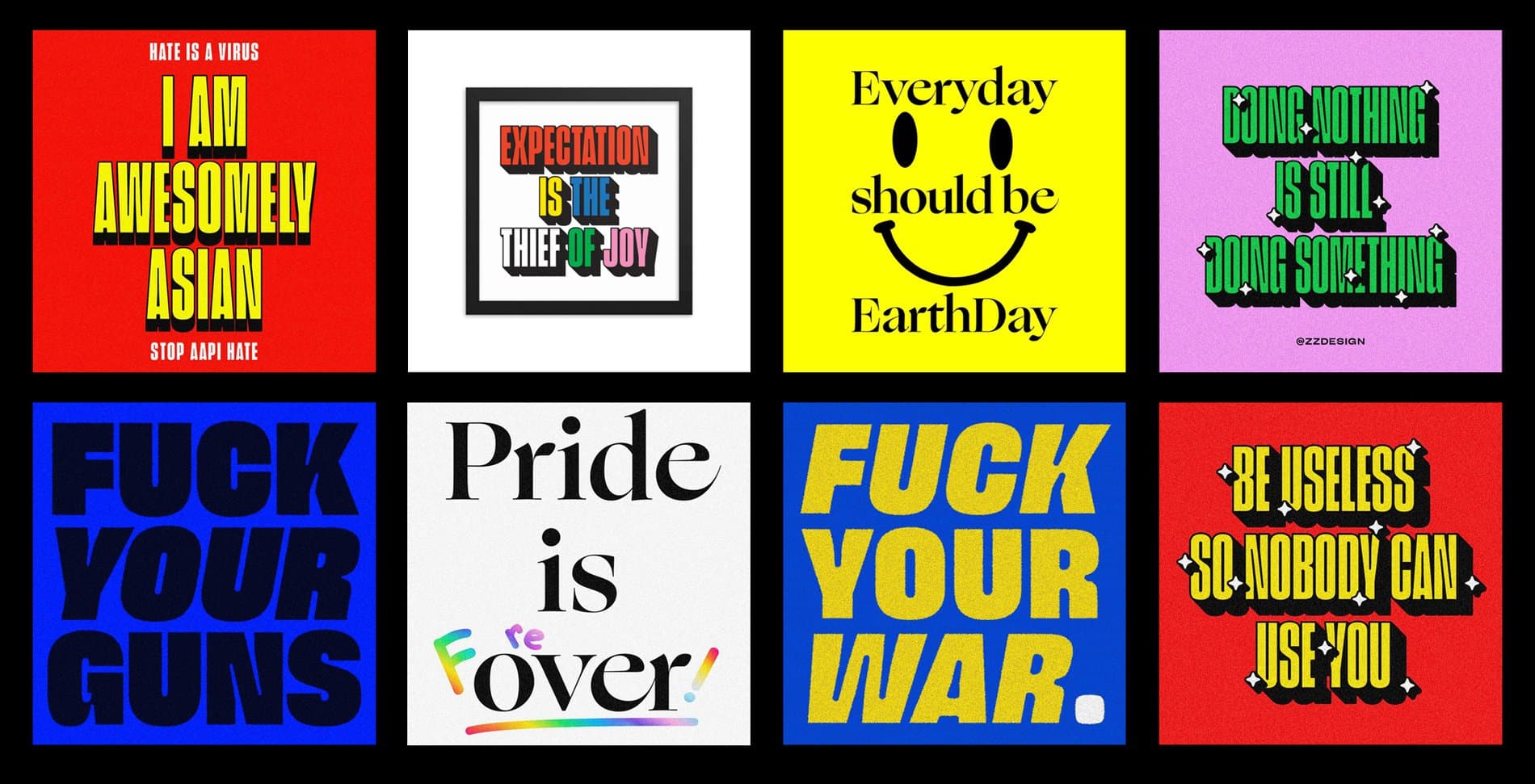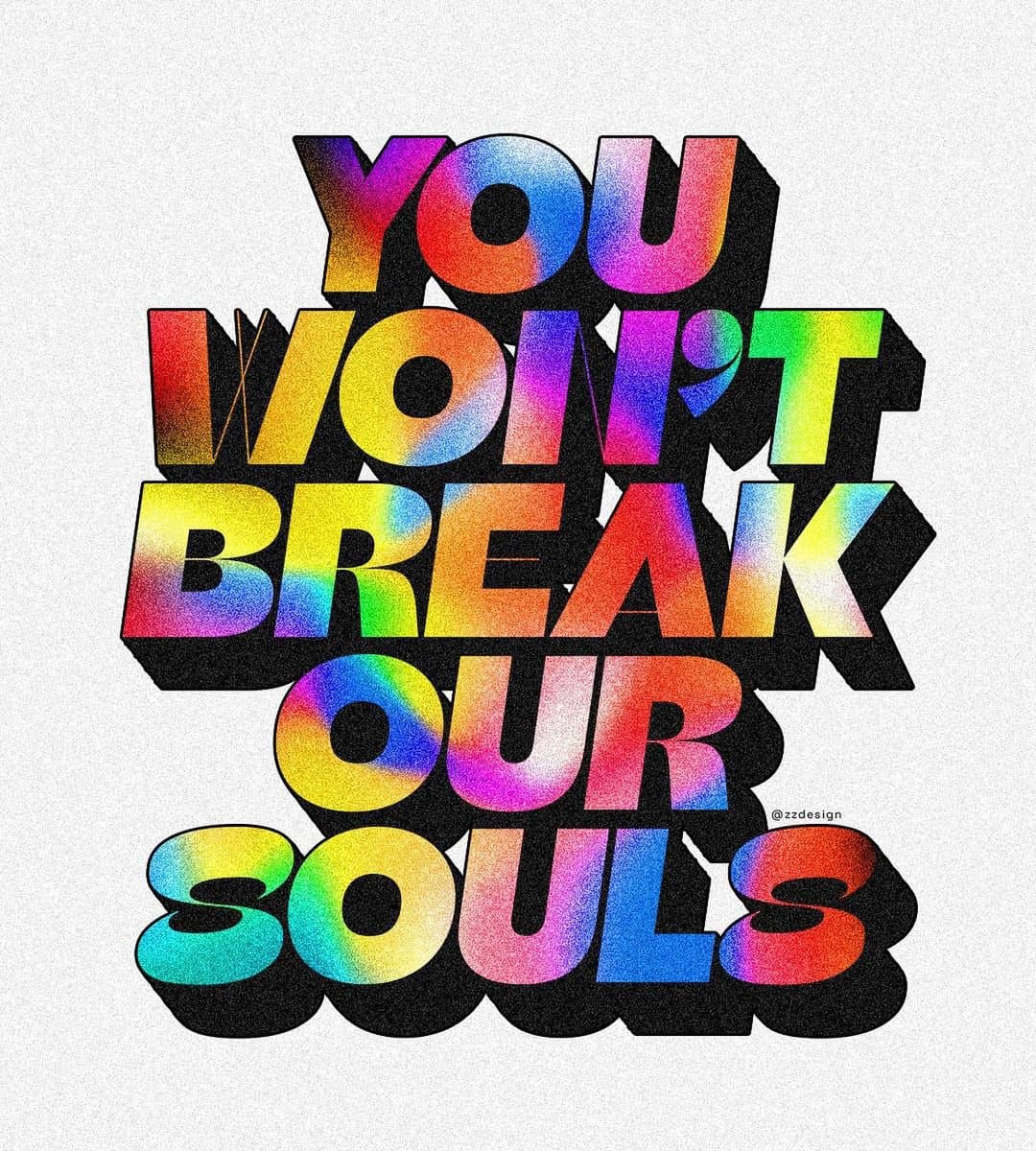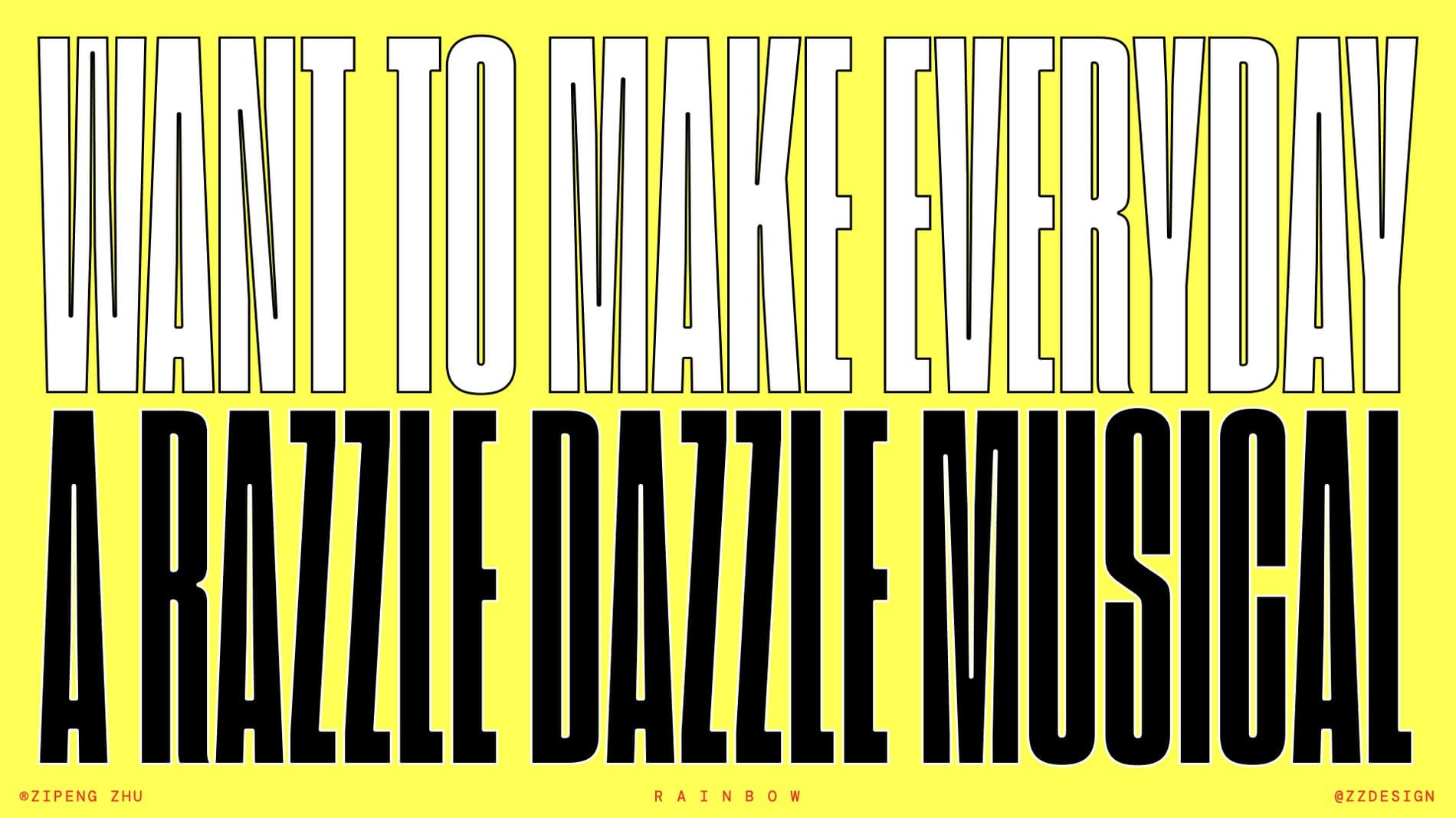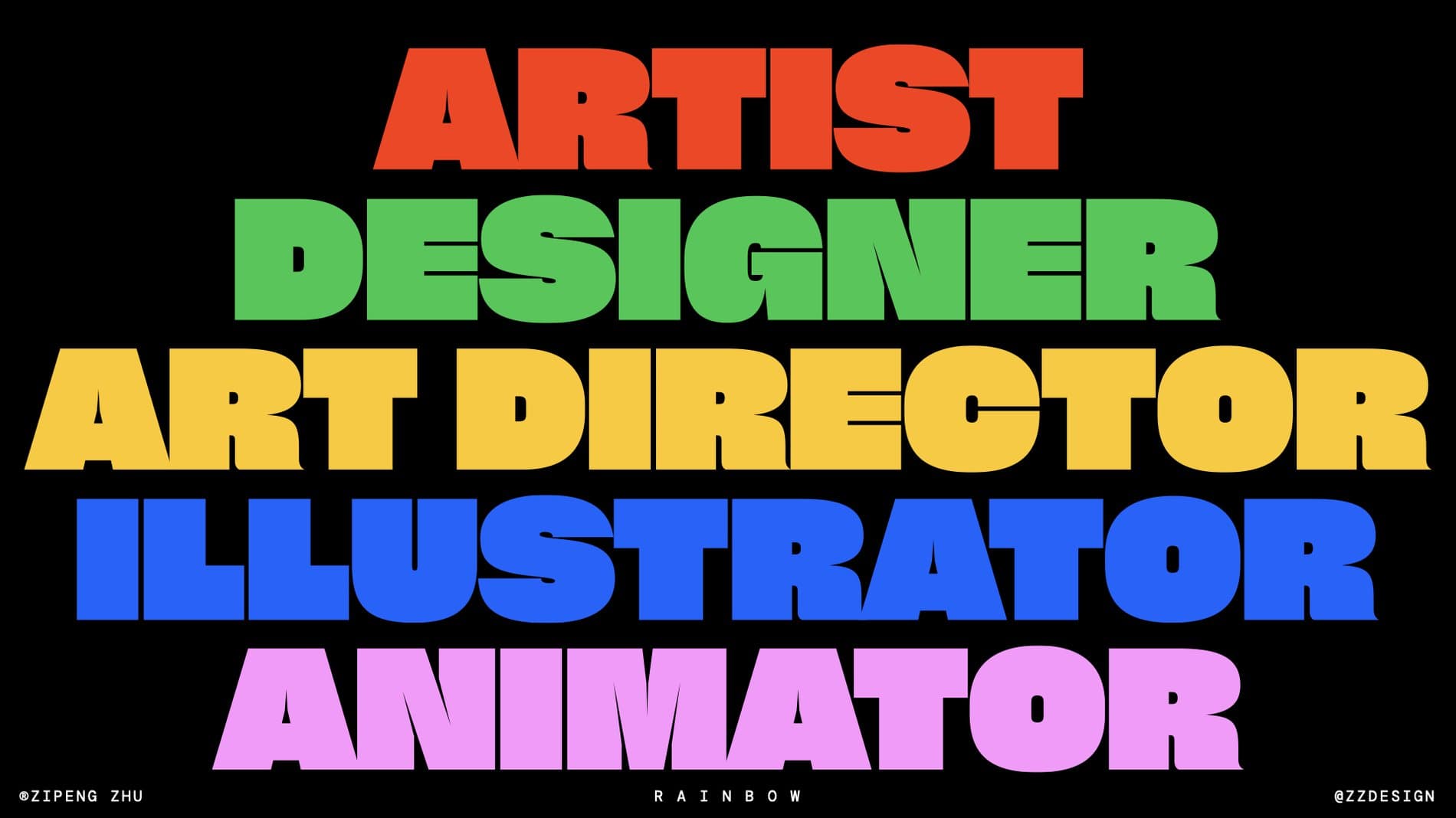
It's always flattering to see a designer use our fonts, but it's something more when someone steadily integrates our library into their work so that it becomes a part of their personal brand. Self-described as an artist, designer, art director, illustrator, and animator, ZipengZhu’s multi-hyphenate public identity embodies a breadth of work that feels inextricably tied to the artist’s own colorful persona. Zipeng is known for his exuberant and playful style, and as a queer-identified Chinese immigrant working in New York City, he is regarded for his outspoken support for the equity and visibility of underrepresented groups within the design community.
We're always curious to see how he'll apply our fonts in his work, especially since they're often the vehicle for communicating his beliefs. When asked how he first came across Sharp Type, Zipeng told us, "It's because of Sharp Sans. I'm a big Herb Lubalin fan and when I saw a new contemporary typeface that's inspired by Avant Garde, that got my interest, and I've been a fan of Sharp Type ever since." It's also always a relief when an artist knows how to customize our typefaces well. With trademark cheekiness, Zipeng says, "Customization of type is very important to me cuz I can't let the typeface do all the jobs for me, can I?"
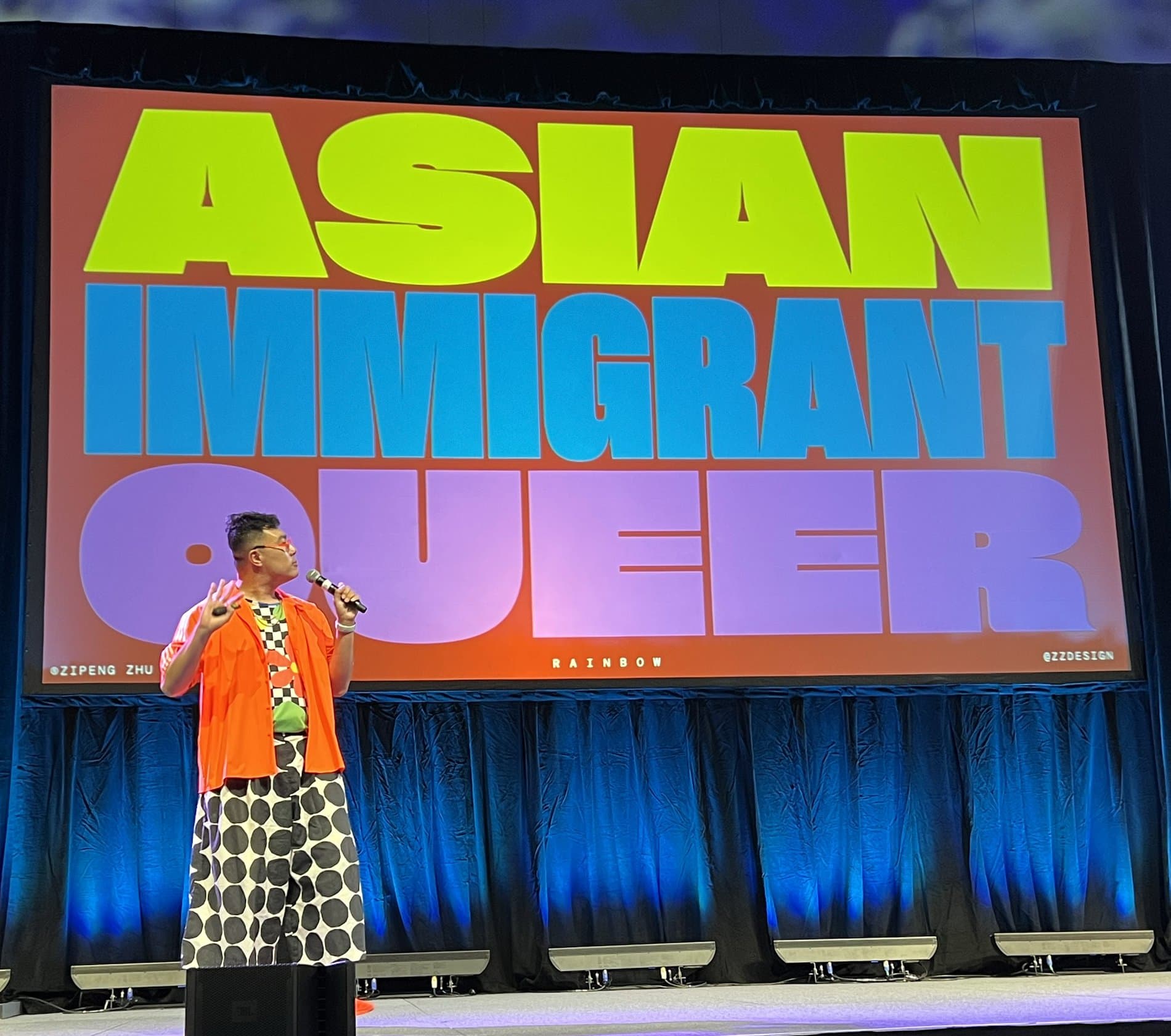
Zipeng's biography is well-known, and for good reason. His current success is preceded by a story that embodies the struggles and tensions of many immigrants who not only have to come to terms with the conflict between their own creative ambition and insecurity, but have the added pressure of having parents who hold different dreams for their children's future. The promising biochemistry high school student eventually made peace with himself and his parents before making his way to New York City to study at SVA. From there, Zipeng's resume reads like a who's who of the design world: he interned at Pentagram before being brought on as senior designer at Sagmeister and Walsh. During this time, he was also winning numerous design accolades including the Young Guns 13 award. Zipeng ventured out on his own in 2016 to start Dazzle, a design studio that, much like its founder, does it all. In addition to his work at Dazzle where he has worked with a myriad of global brands and companies, Zipeng is a sought-after speaker and presenter at design conferences and trade shows.
Zipeng recently spoke at HOW Design Live’s conference early in the summer of 2022 and made notable use of Sharp Grotesk throughout his presentation. "I have to say, when Sharp Grotesk was introduced I just simply lost it. I love BOLD AF type, and Sharp Grotesk Black is an answer to my prayers for years. There are 2 things I love about Sharp Grotesk, first I love how intense this type family is and second I love how flexible it is. Just like me ;-p" In addition to Sharp Grotesk, he has used Beatrice, Ogg, and Doyle, often making edits to further incorporate the fonts into his personal brand.